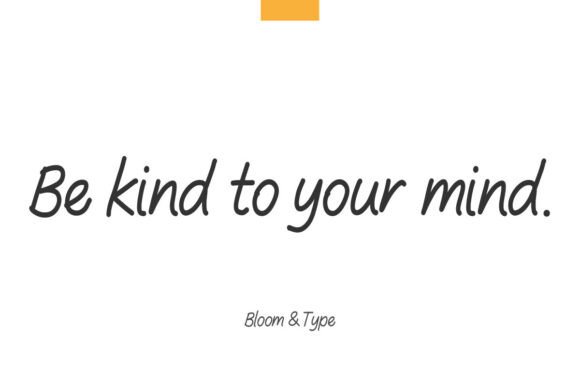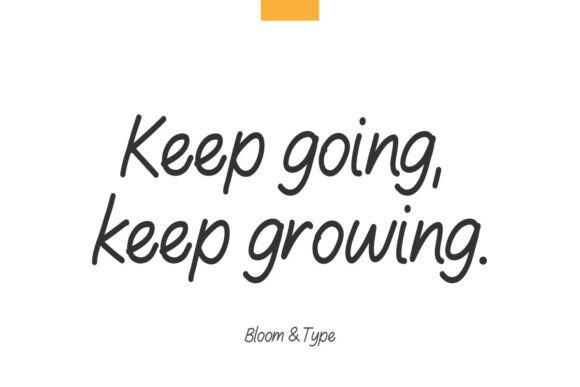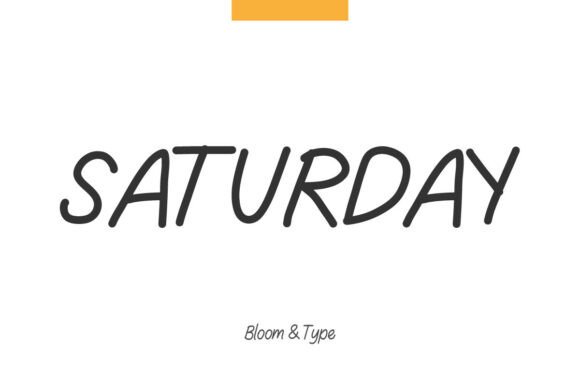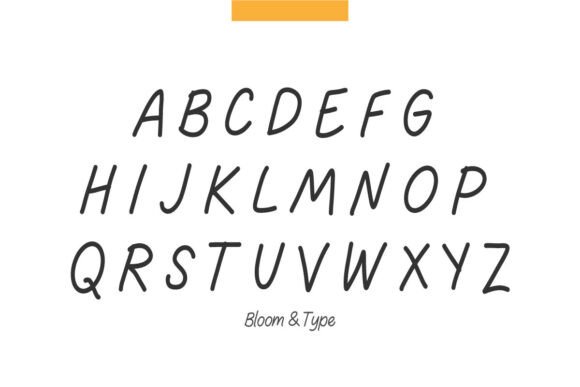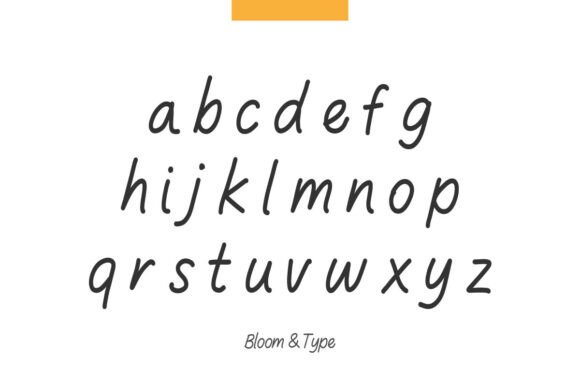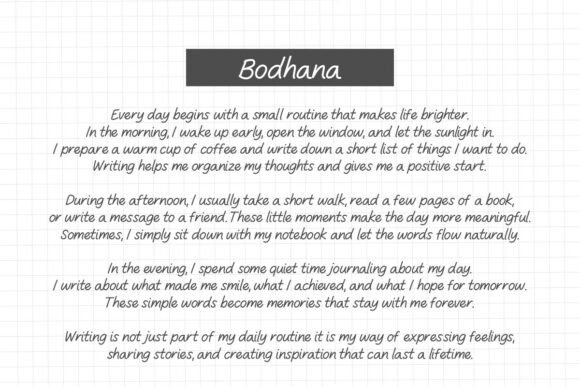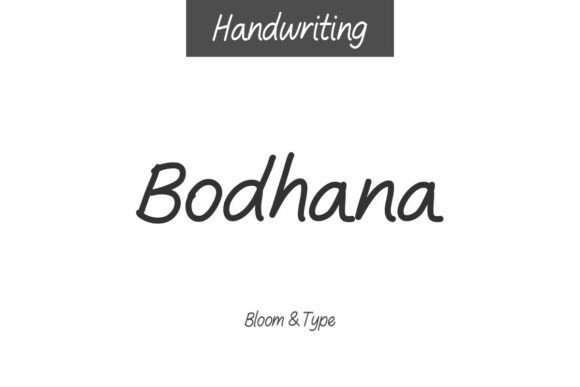
The Bodhana Font: A Charming Handwritten Delight for Your Creative Projects
I’ll never forget the moment I stumbled upon the Bodhana font while working on a branding project for a wellness client. I was on a mission to find the perfect handwritten font that could convey a sense of calmness, friendliness, and approachability. After hours of scouring through font libraries, I finally found Bodhana, and it was love at first sight! ✨ The warmth, personality, and modern handwritten flow of this font instantly resonated with my client’s brand aesthetic.
- ✨ Warm and inviting: Bodhana’s rounded edges and smooth rhythm create a sense of friendliness and sincerity, making it perfect for projects that need a touch of authenticity and calm energy.
- ✅ Elegant yet casual: This font strikes a delightful balance between casual and elegant, making it versatile for various design applications.
- 🌈 Versatile: Bodhana works beautifully for motivational quotes, journals, branding, packaging, and lifestyle designs, adding human warmth to every word.
While Bodhana is an excellent font, there are a few things to keep in mind: ⚠️
- 🤔 Limited use in very formal contexts: Bodhana’s handwritten nature might not make it the best fit for very formal or corporate projects.
- ⚠️ Glyph coverage: While Bodhana has a wide range of glyphs, it might not have every special character or symbol you need.
- Experiment with OpenType features, such as stylistic alternates, to add variety to your text.
The Story Behind Bodhana
Bodhana was designed with the intention of capturing the essence of natural handwriting. The creator aimed to craft a font that would convey warmth, personality, and a sense of approachability. Inspired by the beauty of handwritten letters, Bodhana brings a human touch to digital designs.
Q: What makes Bodhana unique?
A: Bodhana’s unique blend of warmth, personality, and modern handwritten flow makes it stand out from other fonts.